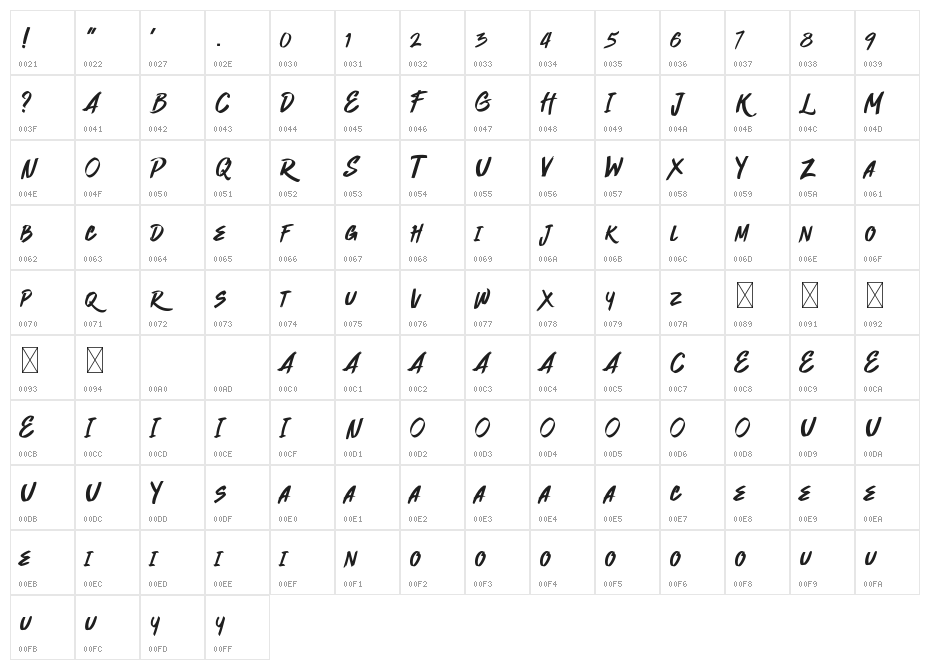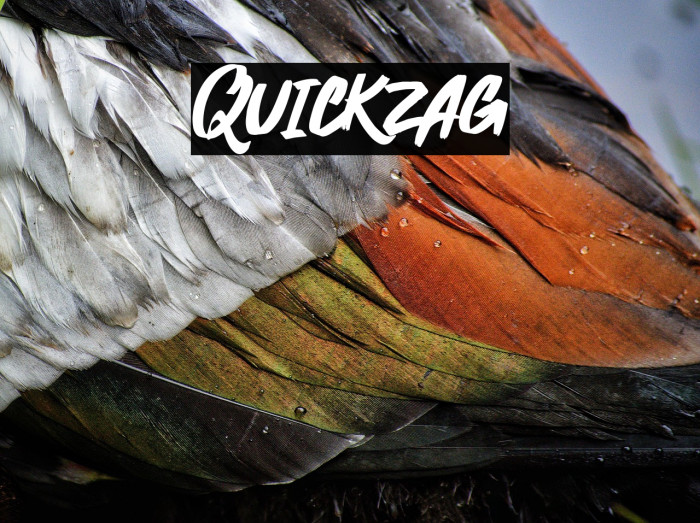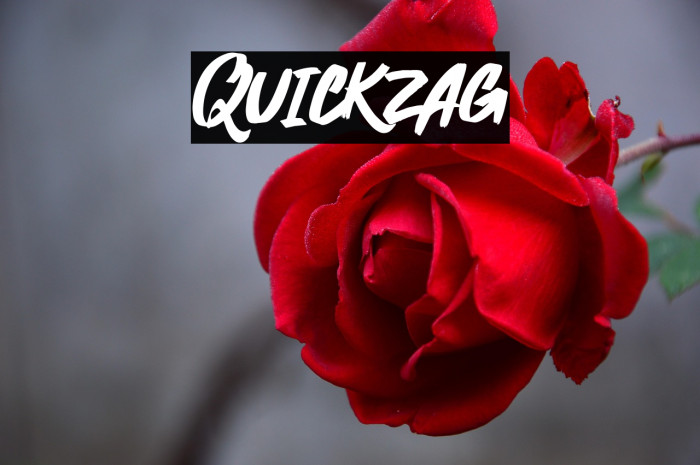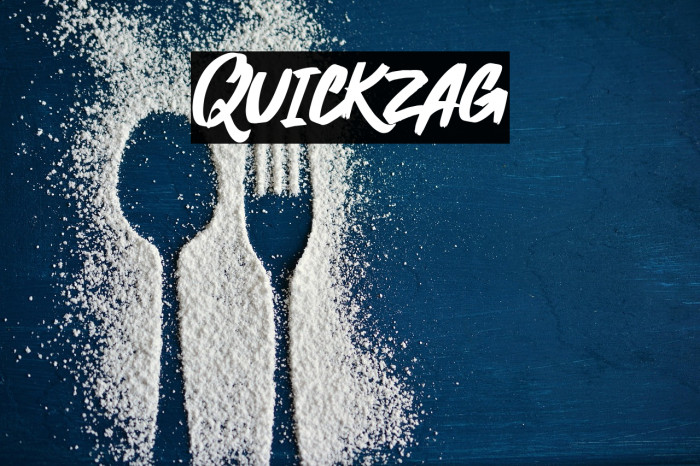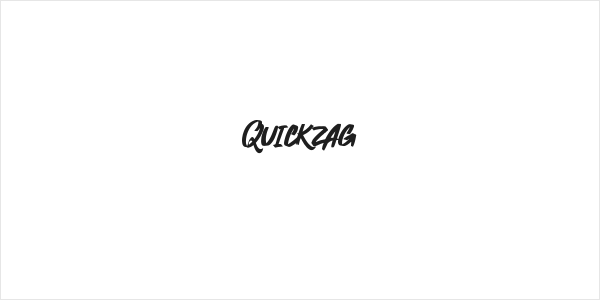
Quickzag Font
Quickzag Description
This font exudes a dynamic and energetic style, characterized by its bold, brush-like strokes that convey a sense of movement and flair. The letters are crafted with a slight slant, enhancing the impression of speed and fluidity. Each character is distinct yet harmoniously integrated into the overall design, making it ideal for capturing attention. The uppercase and lowercase letters maintain a consistent style, with the numbers and special characters following suit. This font's artistic nature makes it perfect for creative projects that require a touch of personality and vibrancy.
| Overall Style | Modern, Decorative |
| Proposed Projects | Ideal for branding, posters, and creative design projects that require a bold statement. |